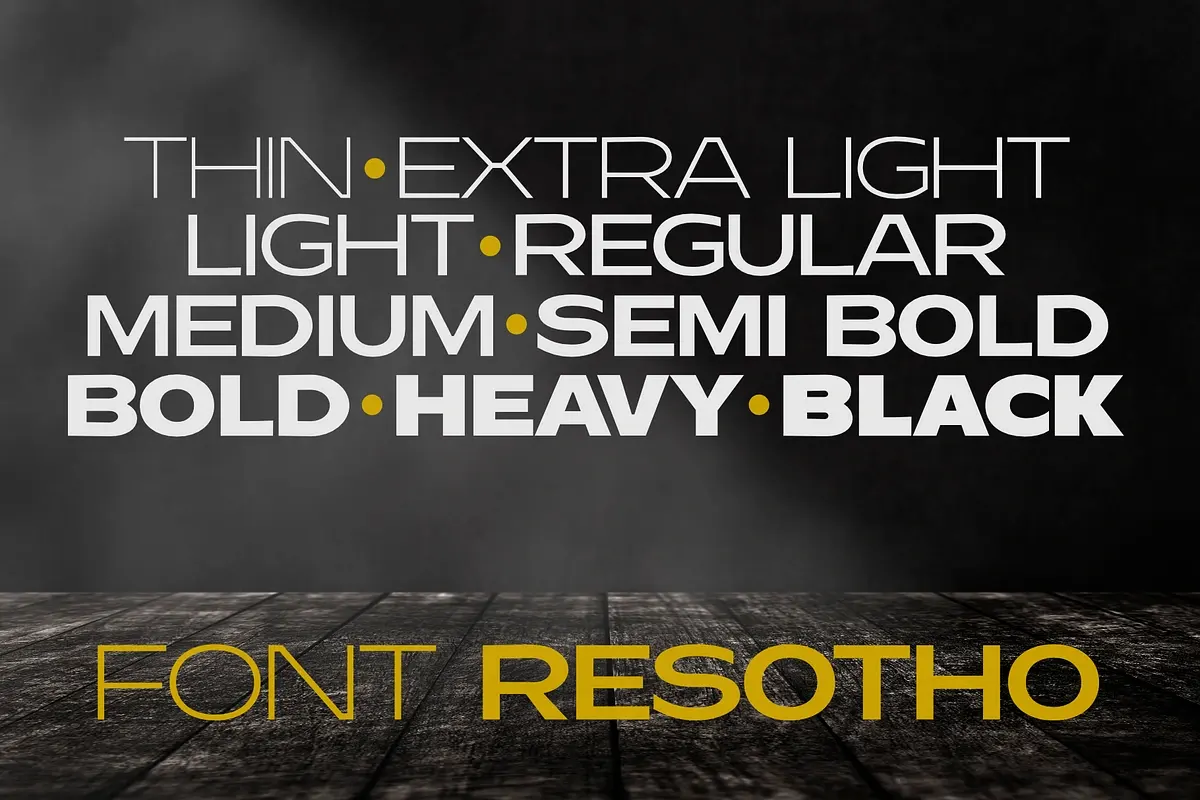
Resotho Font Family Free Download
Resotho Font Family Free Download is a modern and versatile typeface designed to elevate your design projects. With multiple weights and styles, this font family is perfect for creating logos, websites, branding materials, and editorial designs. Its clean lines and balanced proportions ensure clarity and professionalism, making it ideal for both corporate and creative projects. Whether you're working on a sleek brand identity, a minimalist website, or an elegant marketing piece, Resotho Font Family Free Download provides the flexibility to suit any design need. Experiment with its various weights in personal projects before purchasing a commercial license and add sophistication and style to your designs with this beautifully crafted font family.